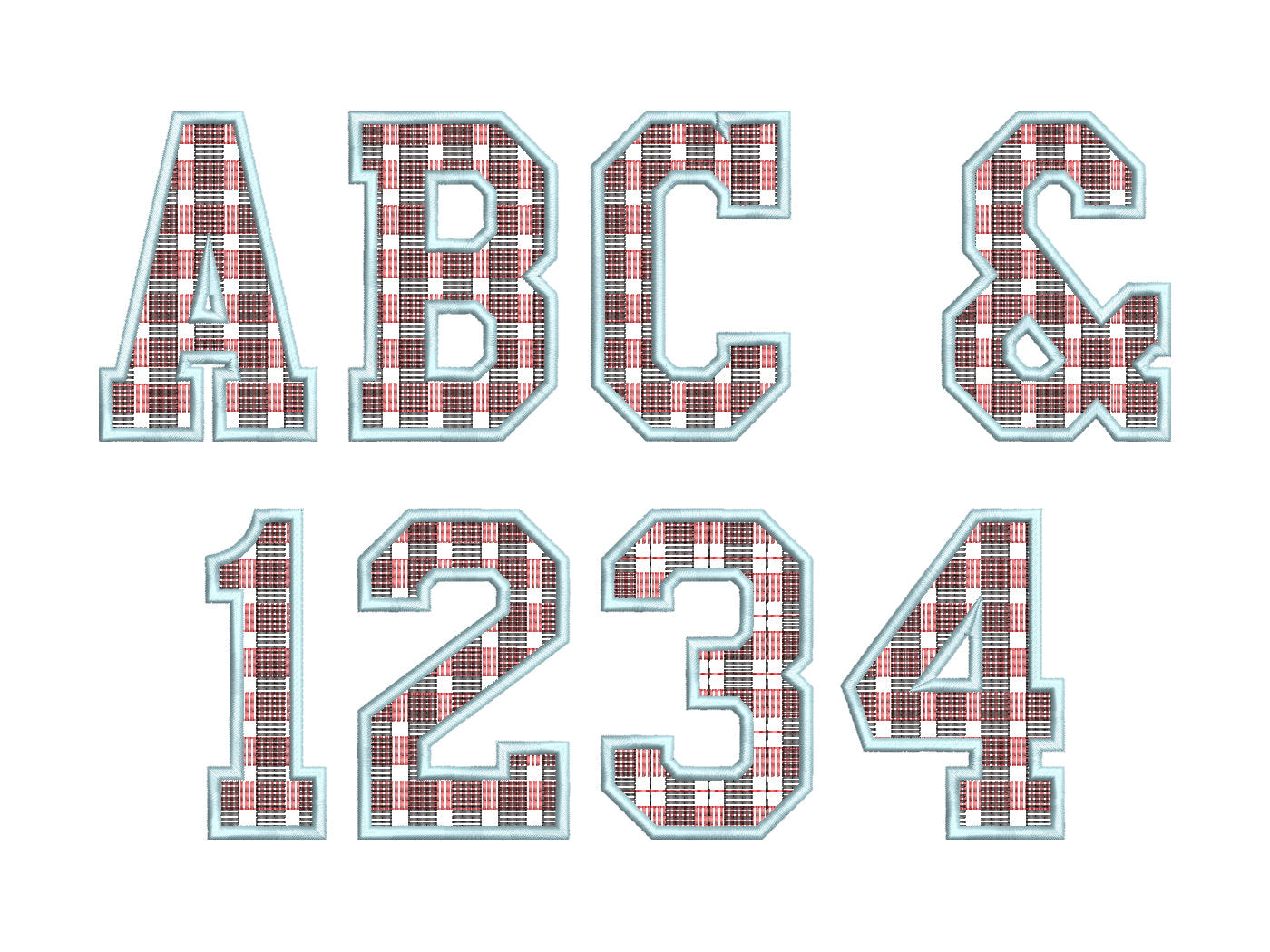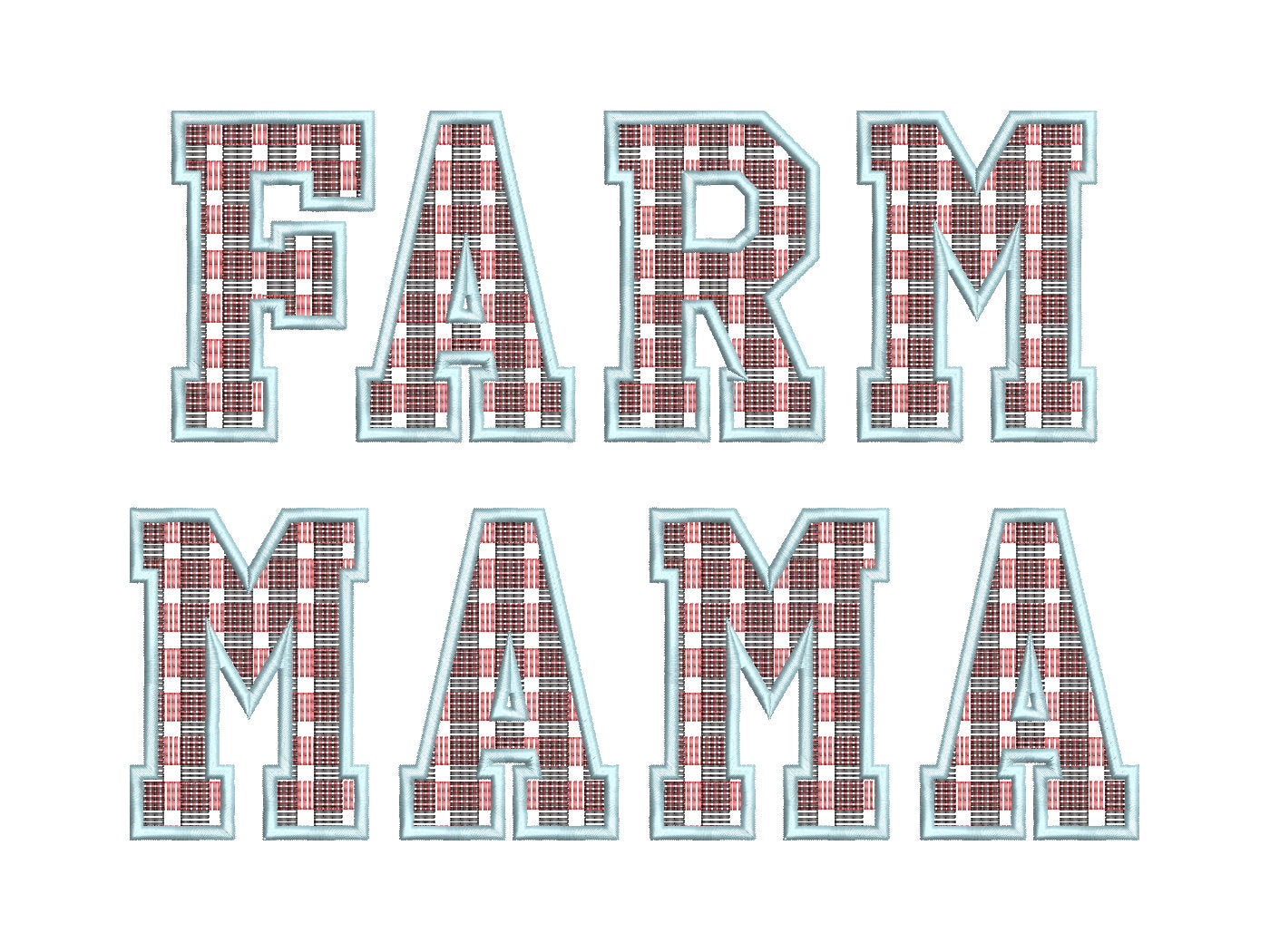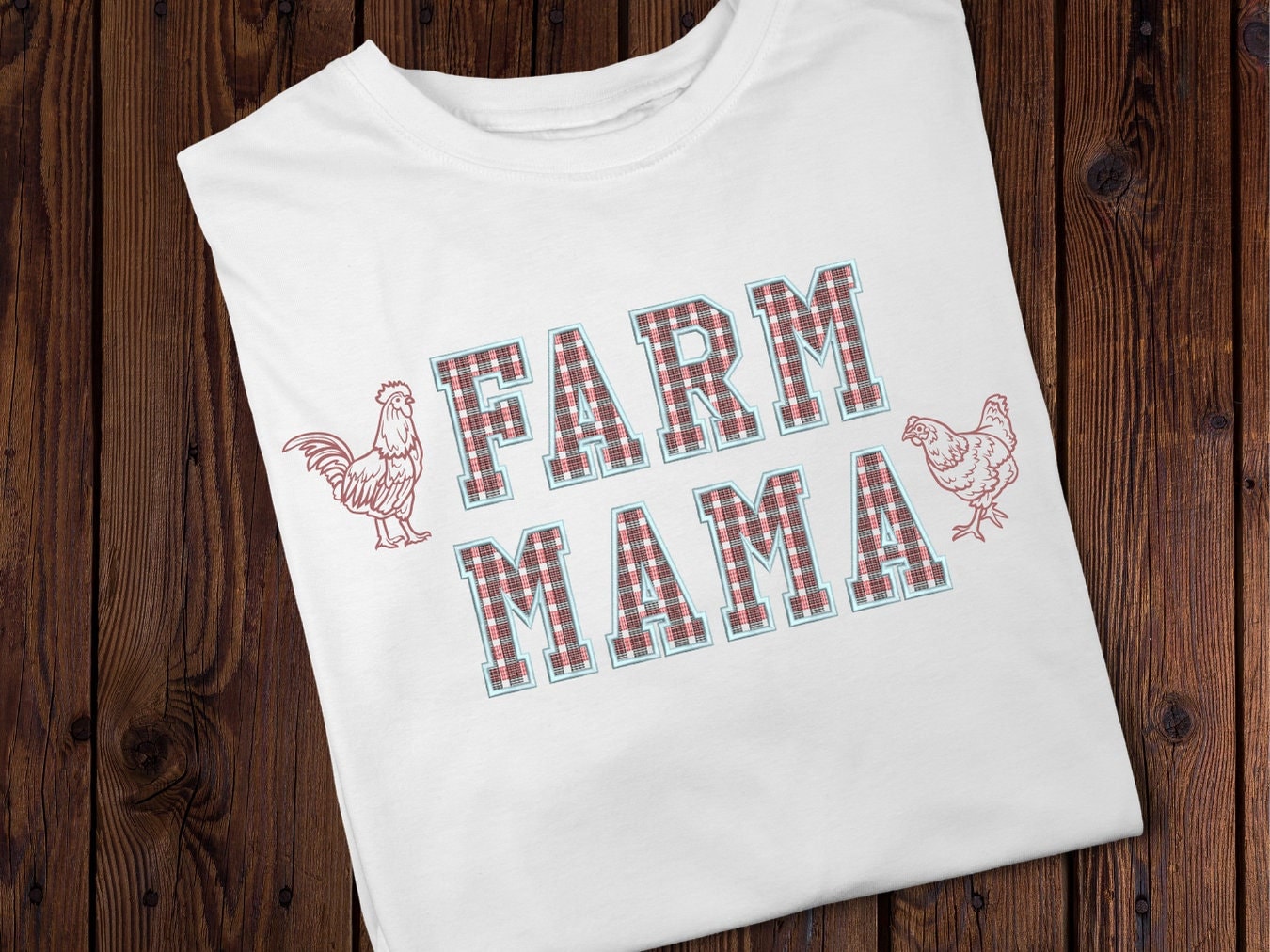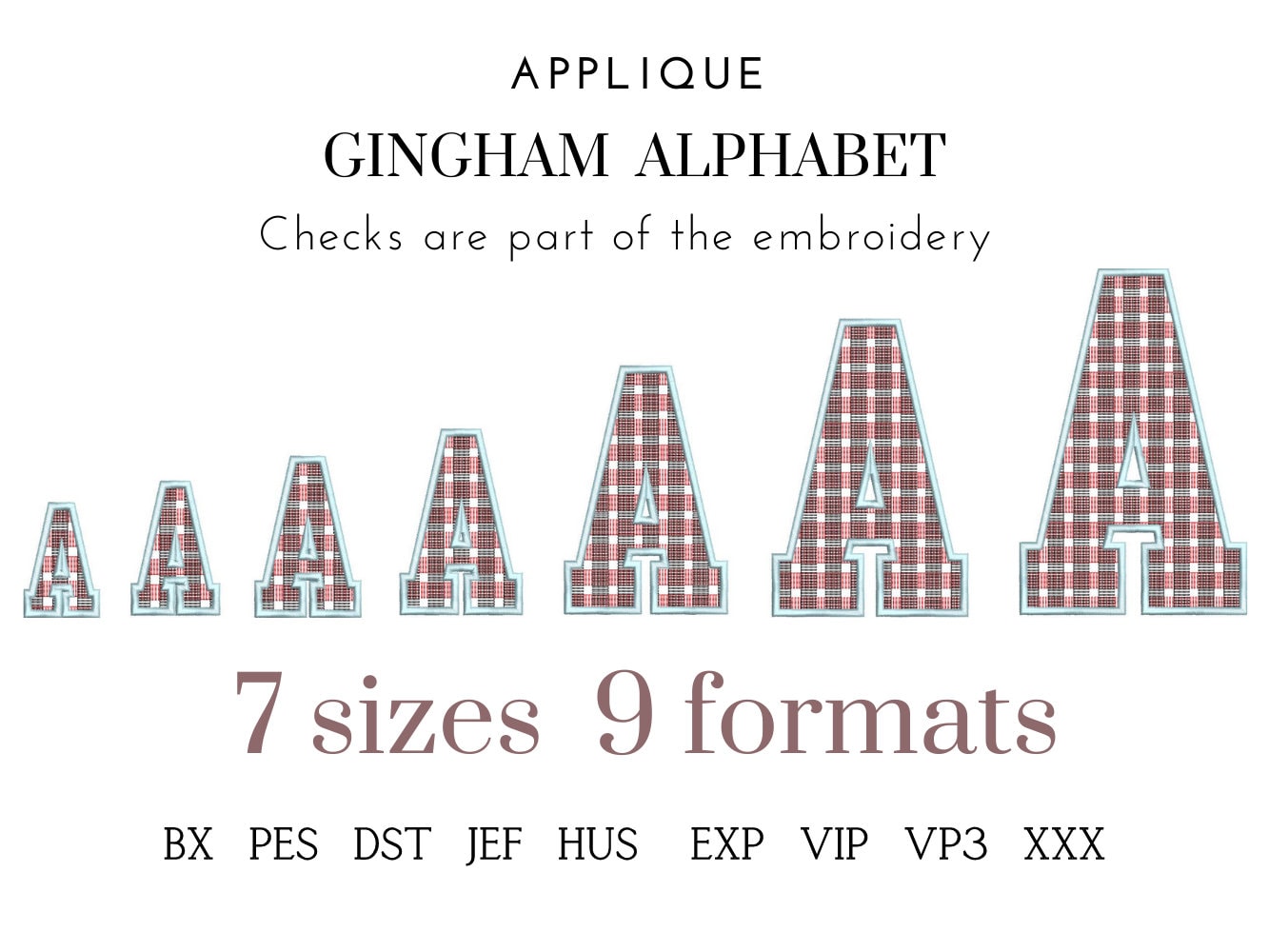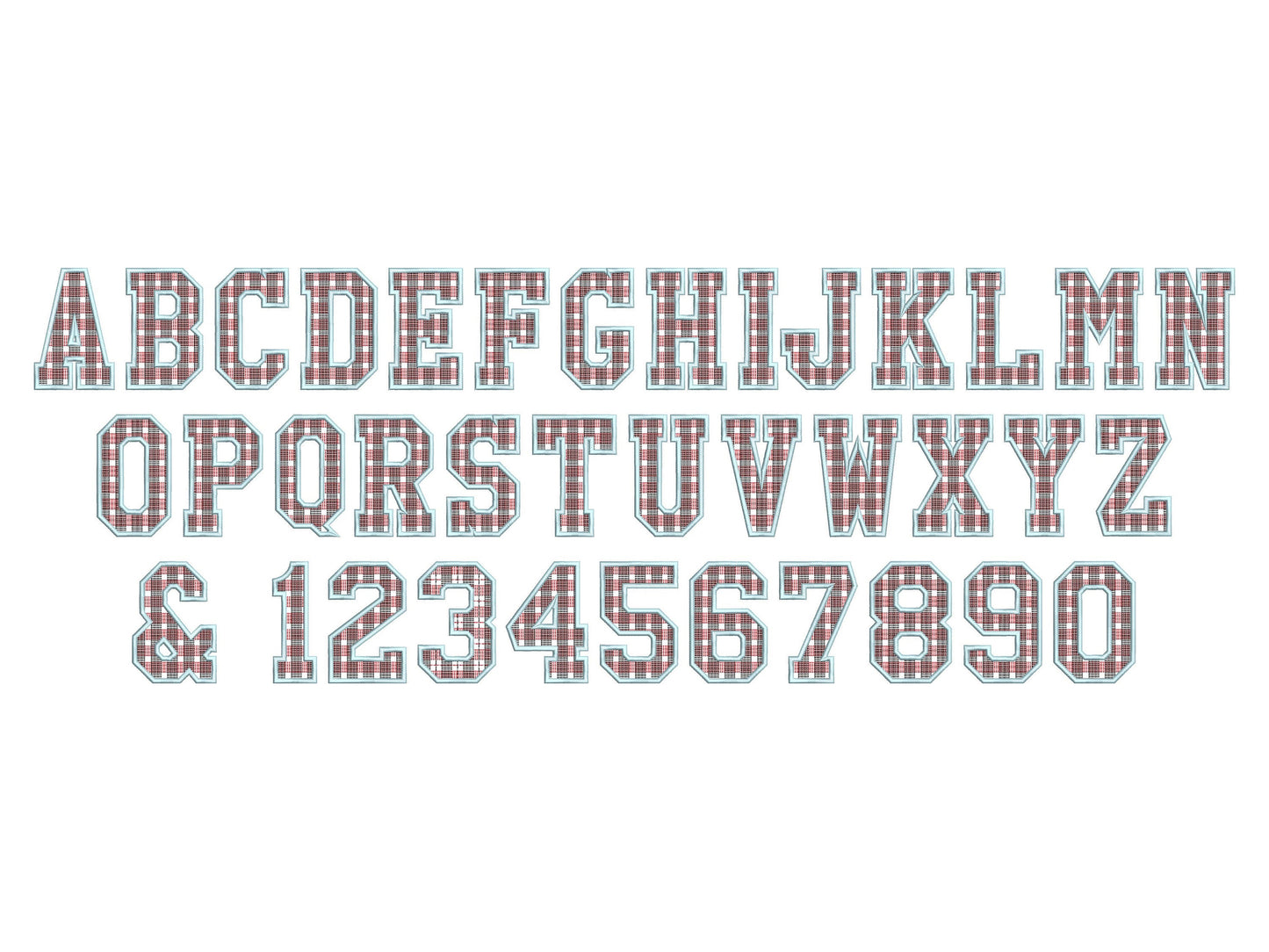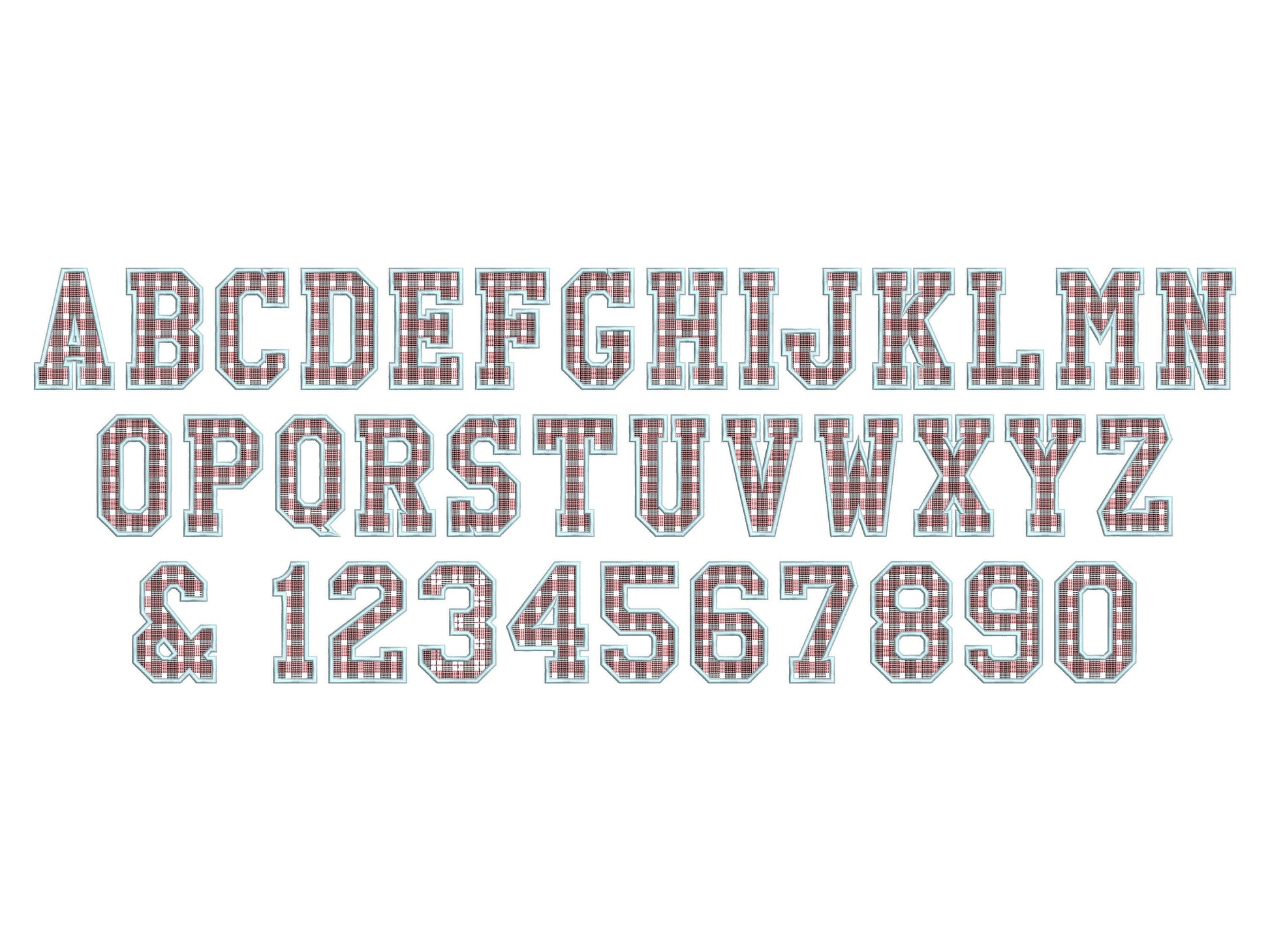
Or click to open the linkA block applique font with a gingham check stitched in. Great for Christmas and fall shirts, pillows, stockings and bags.
Uppercase letters A to Z, numbers 0 to 9, an ampersand and a question mark. Seven sizes: 2.5, 3, 3.5, 4, 5, 6 and 7 inches. The gingham checks are part of the embroidery.